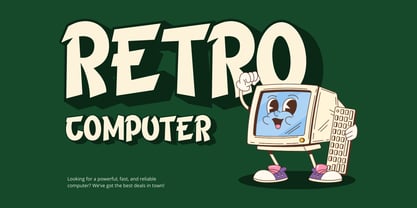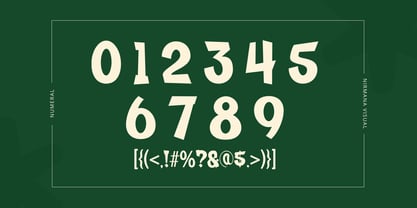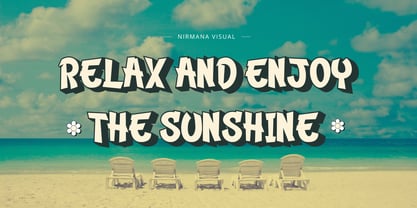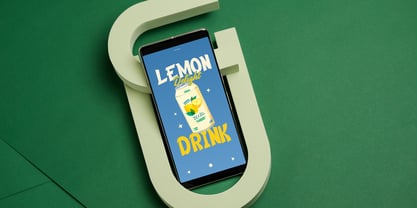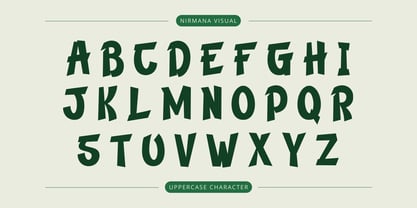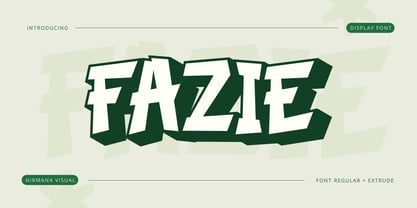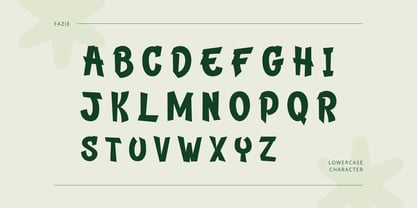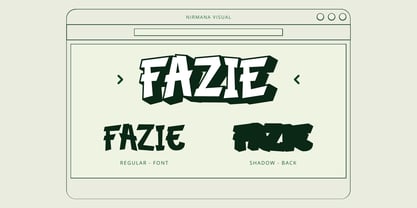
Fazie Retro
by Nirmana Visual
The Fazie Retro Font Family was designed by Sigit Dwipa and published by Nirmana Visual. Fazie Retro contains 2 styles and family package options. More about this family
Fazie Retro is a bold and playful vintage font that brings a nostalgic touch to any design. Available in Regular and Extrude styles, it features strong, rounded letterforms with a fun, retro aesthetic. Perfect for posters, branding, packaging, and headlines, Fazie Retro captures the essence of the past while staying fresh and dynamic. The Extrude style adds depth, making designs pop with a 3D effect, ideal for eye-catching, retro-inspired visuals.